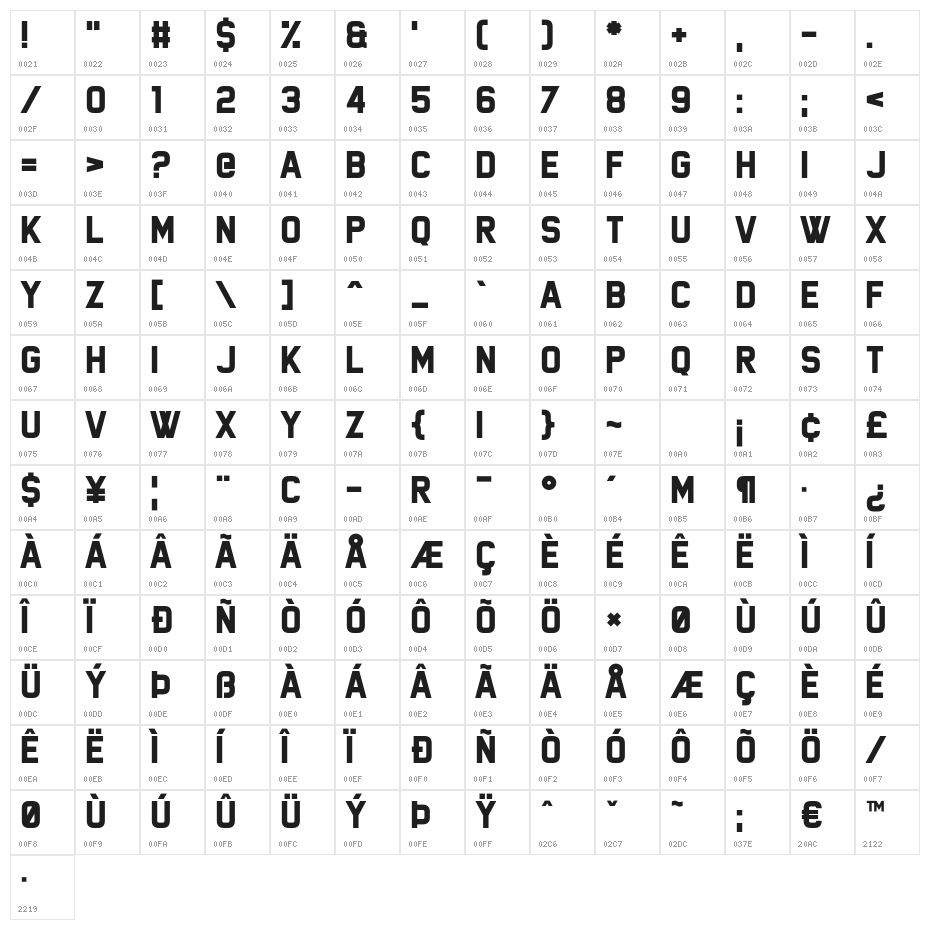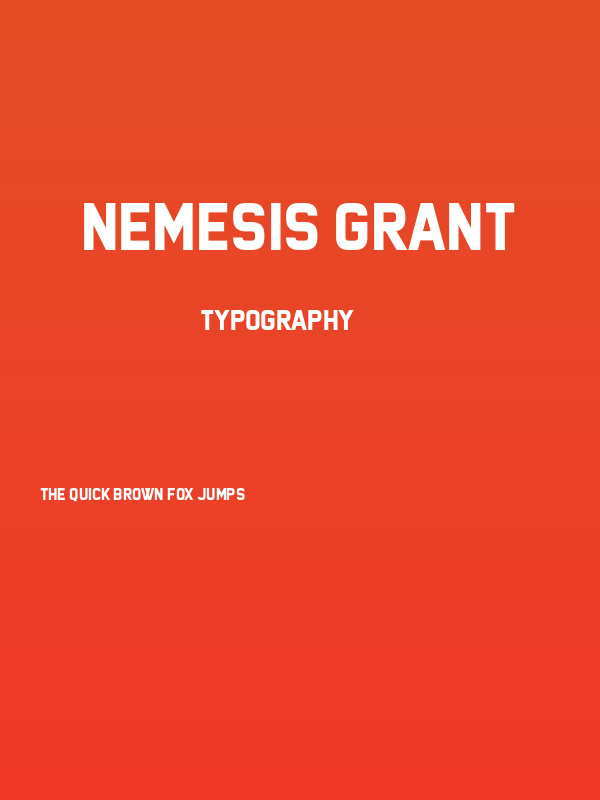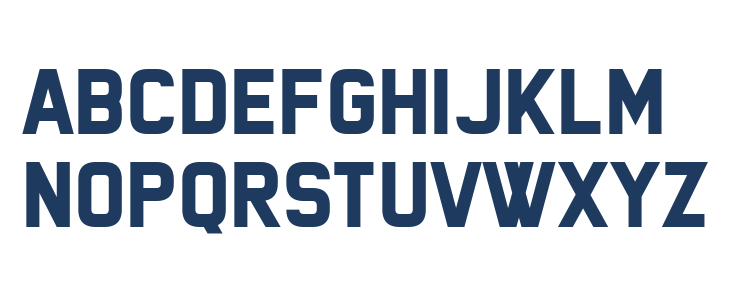
Nemesis Grant Font
Nemesis Grant Description
This font features a bold and impactful design, characterized by its strong geometric shapes and uniform stroke widths. The uppercase letters are prominent and assertive, making a statement with their solid and block-like appearance. The numerals and special characters maintain the same boldness, ensuring consistency across all glyphs. The font's design is modern and clean, with a focus on clarity and readability, making it suitable for attention-grabbing headlines and titles. Its structured form and lack of serifs contribute to a contemporary aesthetic, ideal for projects that require a strong visual presence.
| Proposed Projects | Ideal for branding, advertising, posters, and any design work that requires a strong, impactful typeface. |